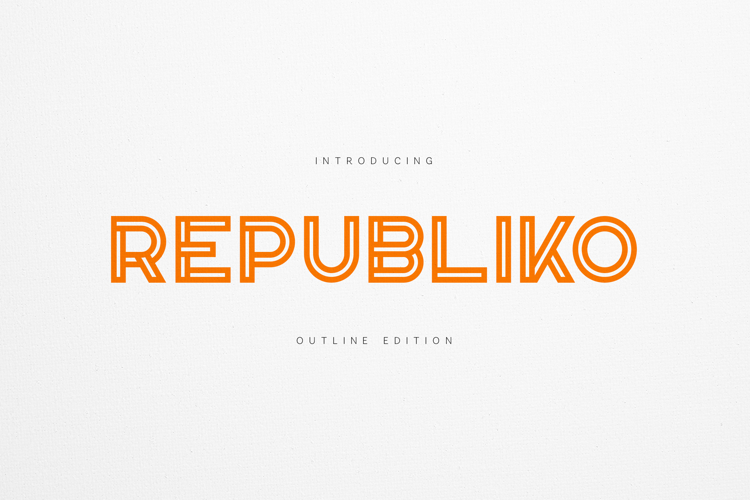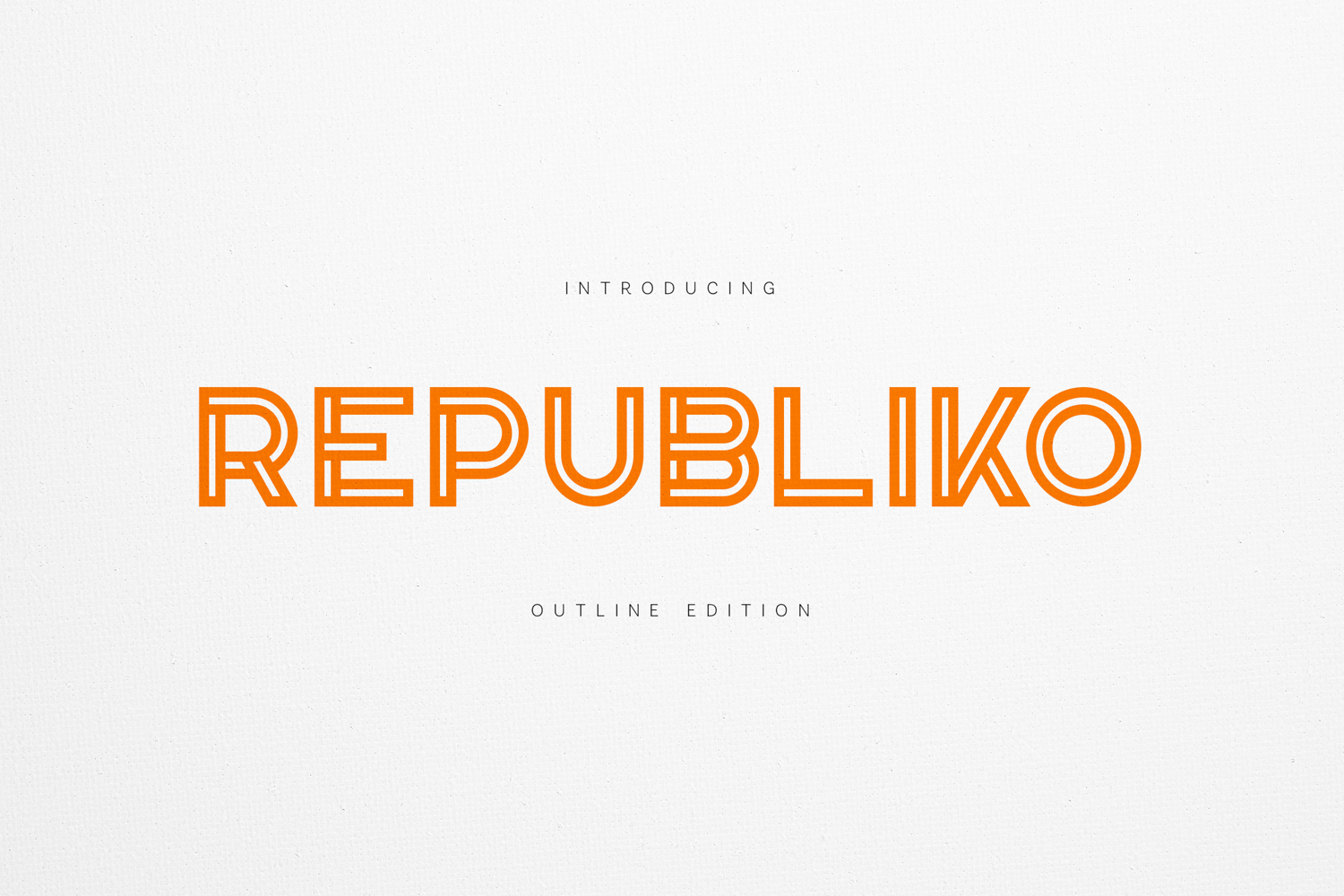
Republiko Outline Modern Geometric Display Font
Republiko Outline is a modern geometric display font built with a distinctive double-line structure and clean architectural balance.
Designed for bold headlines and contemporary branding, Republiko Outline combines sharp angles with smooth curves to create a futuristic yet highly structured visual identity. Its layered outline construction gives typography depth, rhythm, and strong graphic presence.
Perfect for high-impact compositions, Republiko works beautifully in:
• Posters & large headlines
• Branding & logo design
• Editorial layouts
• Album covers
• Streetwear graphics
• Packaging design
• Modern visual identities
The font includes uppercase letters, multilingual accents, numerals, and punctuation, making it versatile for international projects.
Republiko Outline transforms structure into statement and geometry into expression.